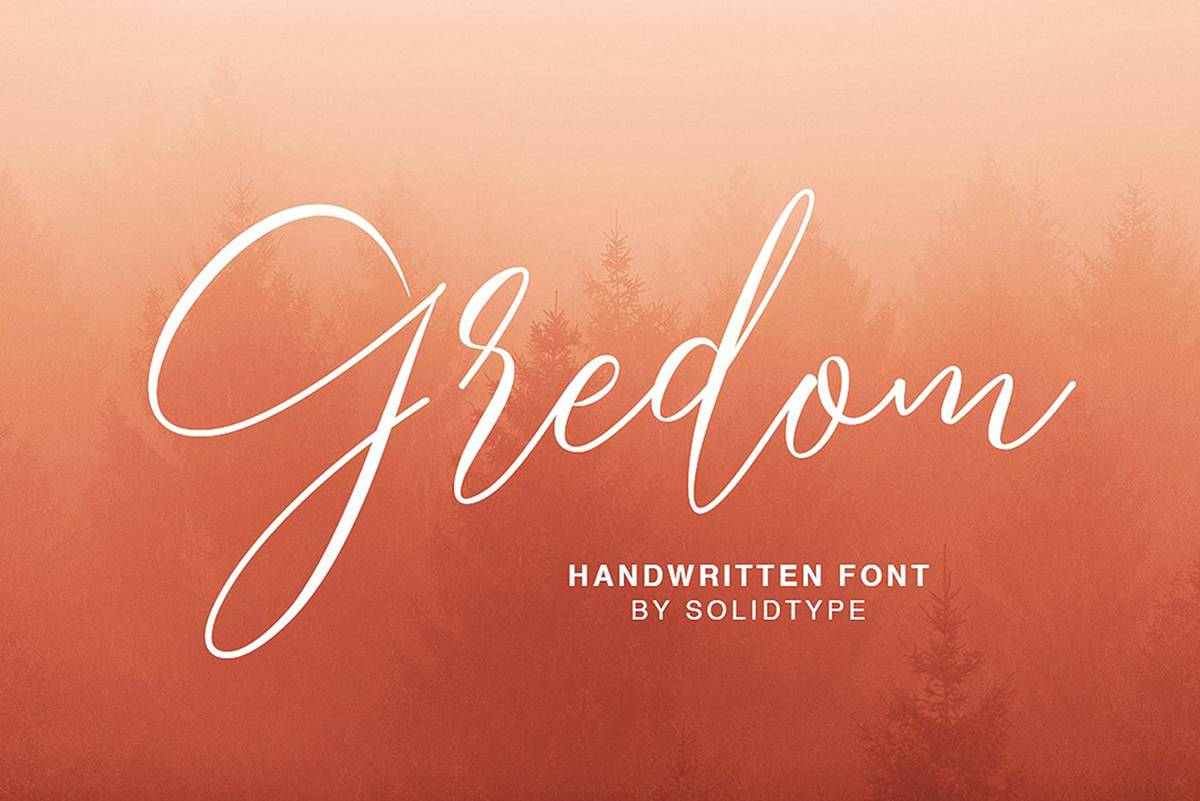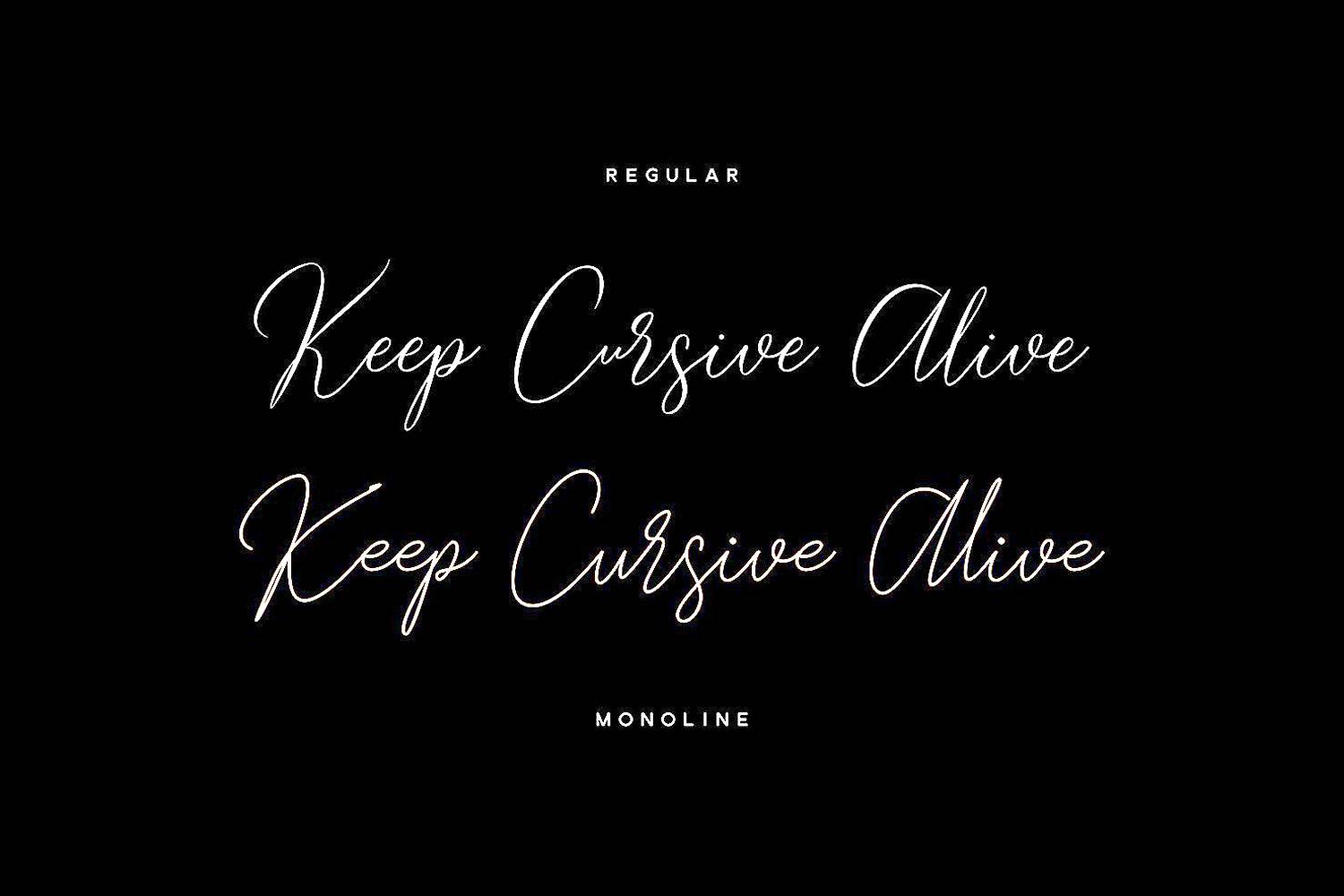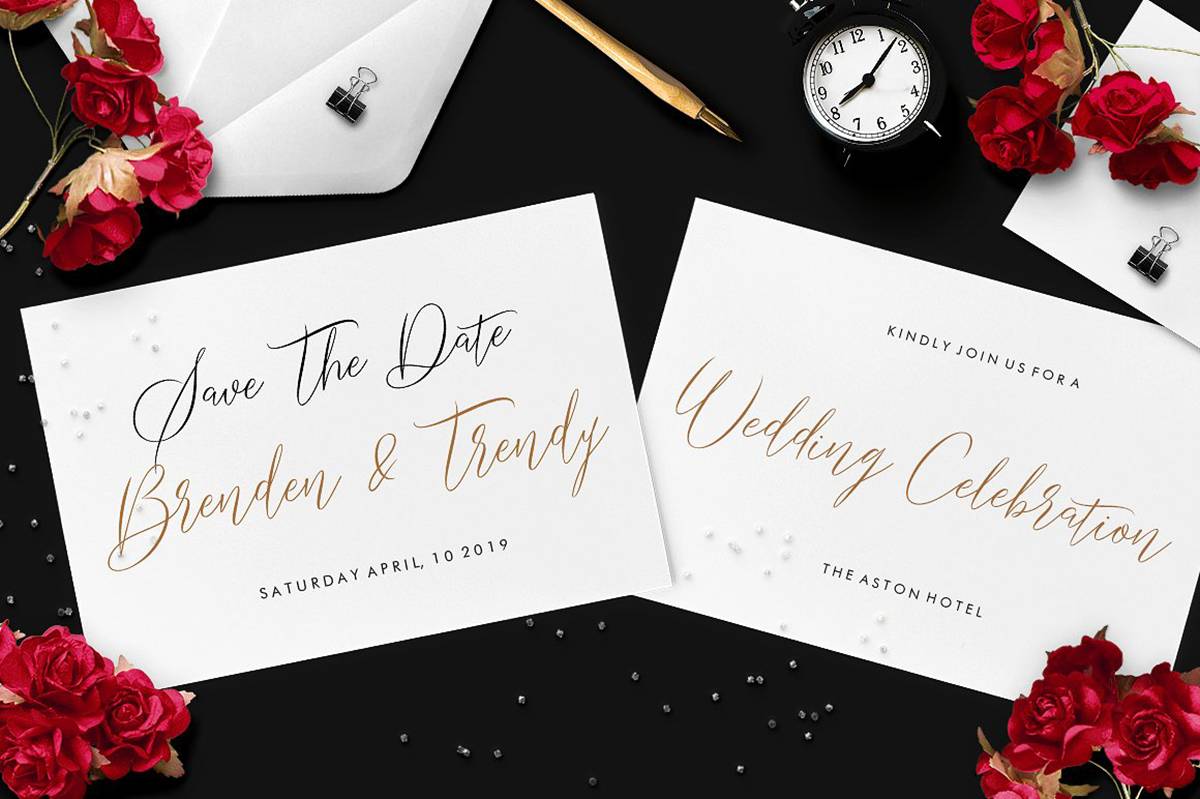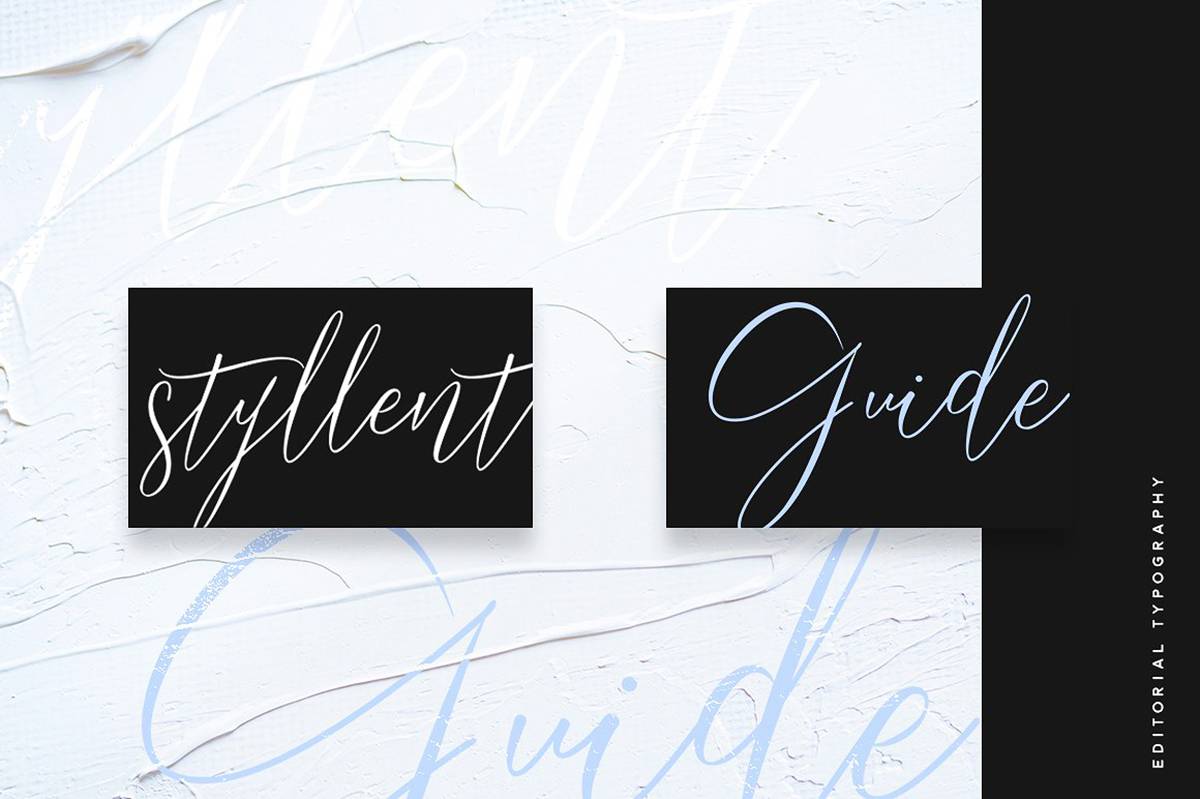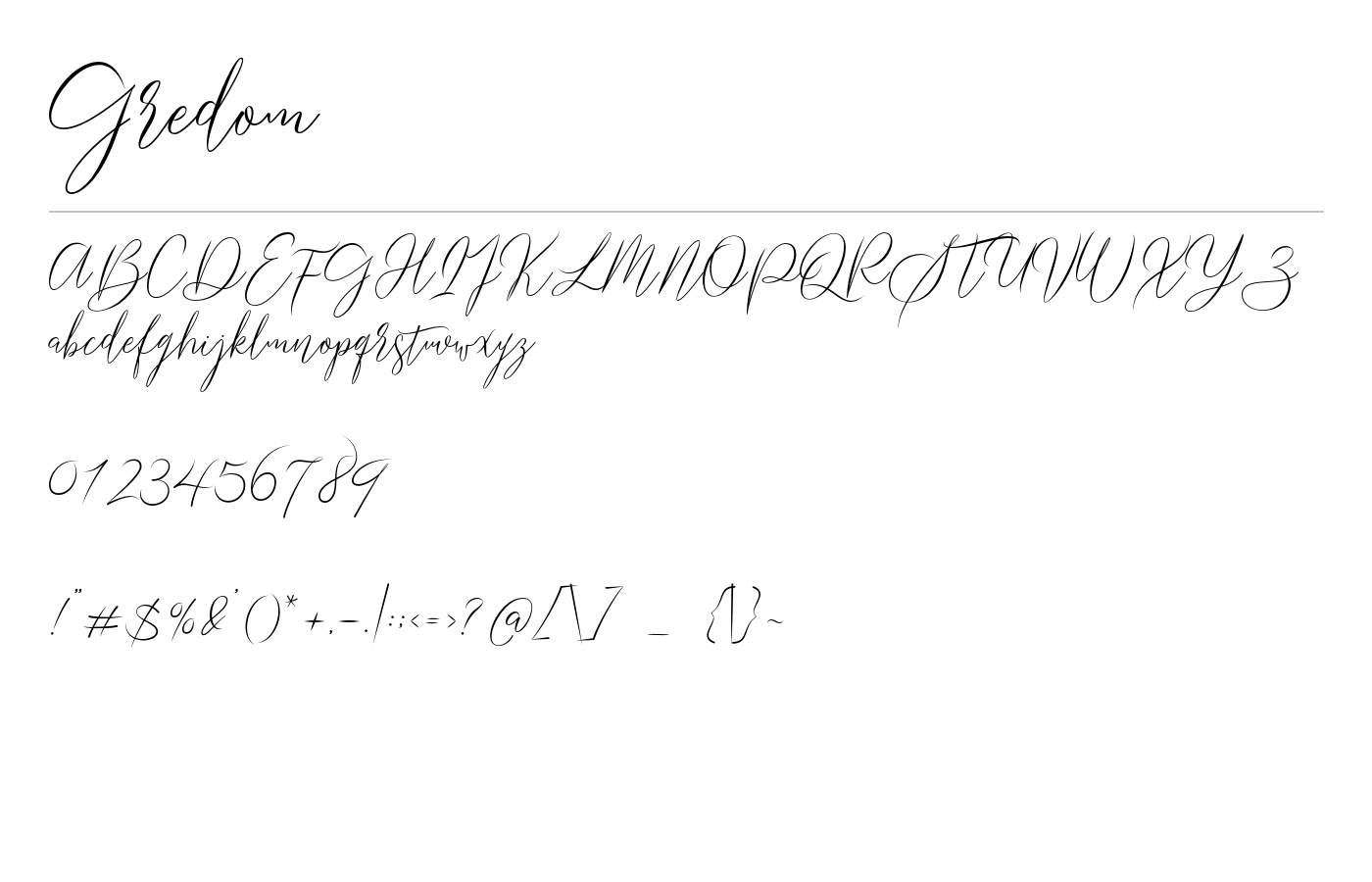
Gredom is a delicate, elegant script font characterized by its fine, flowing strokes and graceful letterforms that mimic natural handwriting. It features slender lines with subtle variation in thickness, giving it a light and airy feel, perfect for adding a sophisticated, personal touch to wedding invitations, branding, and luxury packaging. This font works best in decorative or headline use where its intricate details can shine without sacrificing readability.
Gredom Font
About Gredom Font